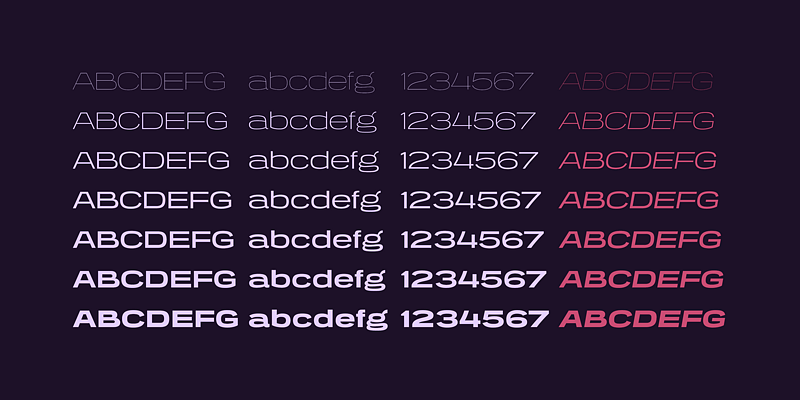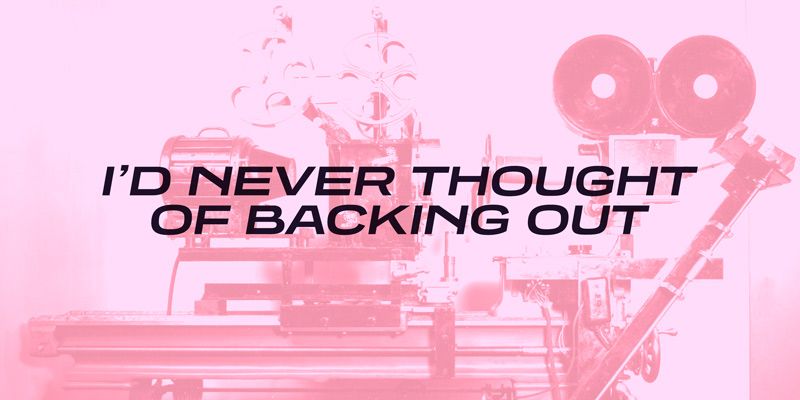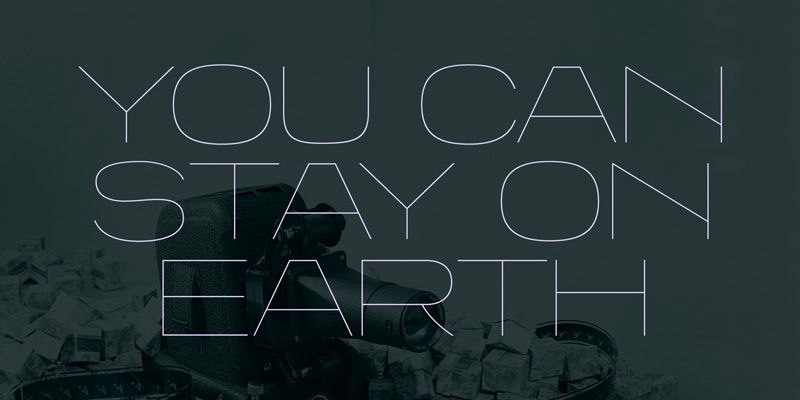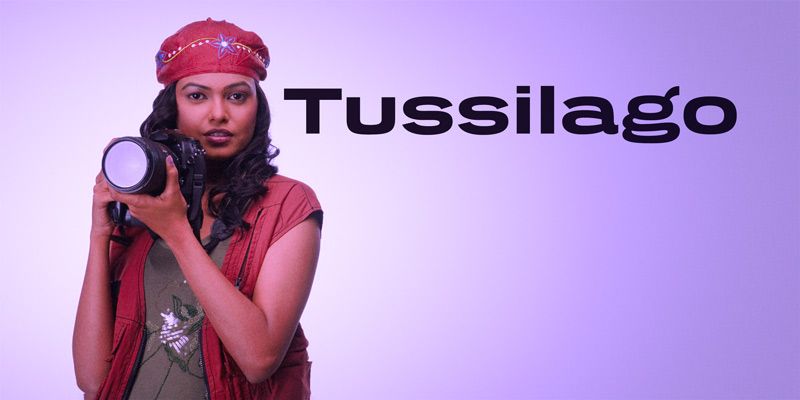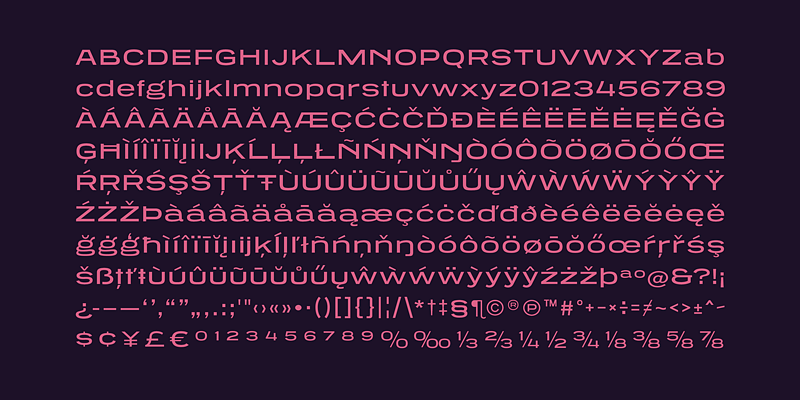
Tussilago gives a word a broad, burly stance without turning it into a harsh industrial command. Its sturdy geometric forms feel steady and cool-headed, useful when a title or product name needs to occupy a long horizontal surface. Bicycle frames, audio equipment, appliance fronts, architectural signs, and exhibition headings offer room for that width to become part of the composition. Seven weights span UltraLight through Heavy with matching italics, so the same wide structure can appear as an airy campaign line or a substantial marque.